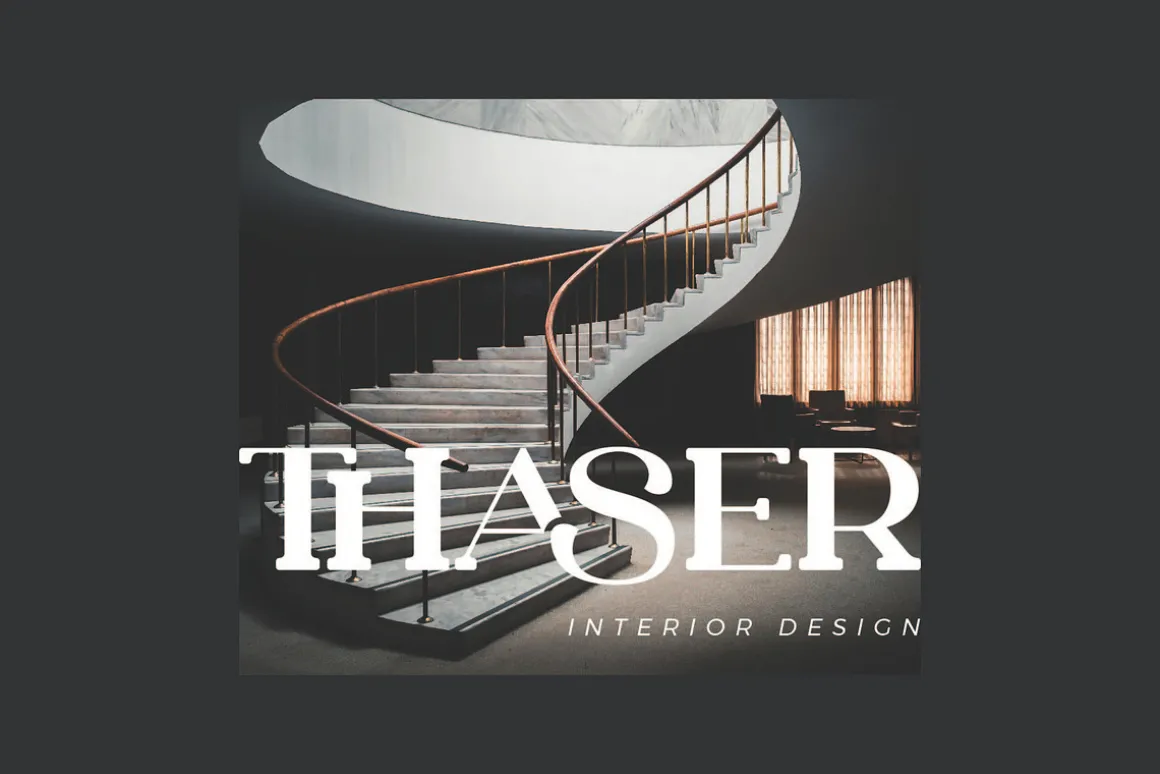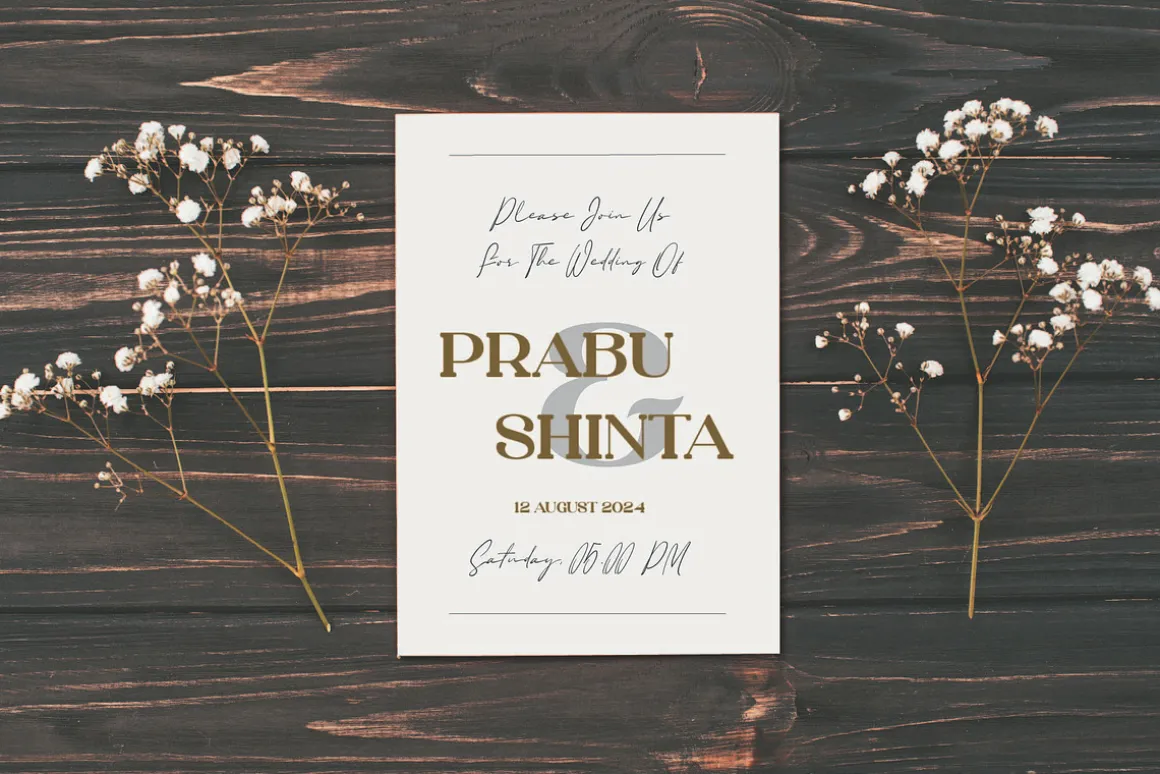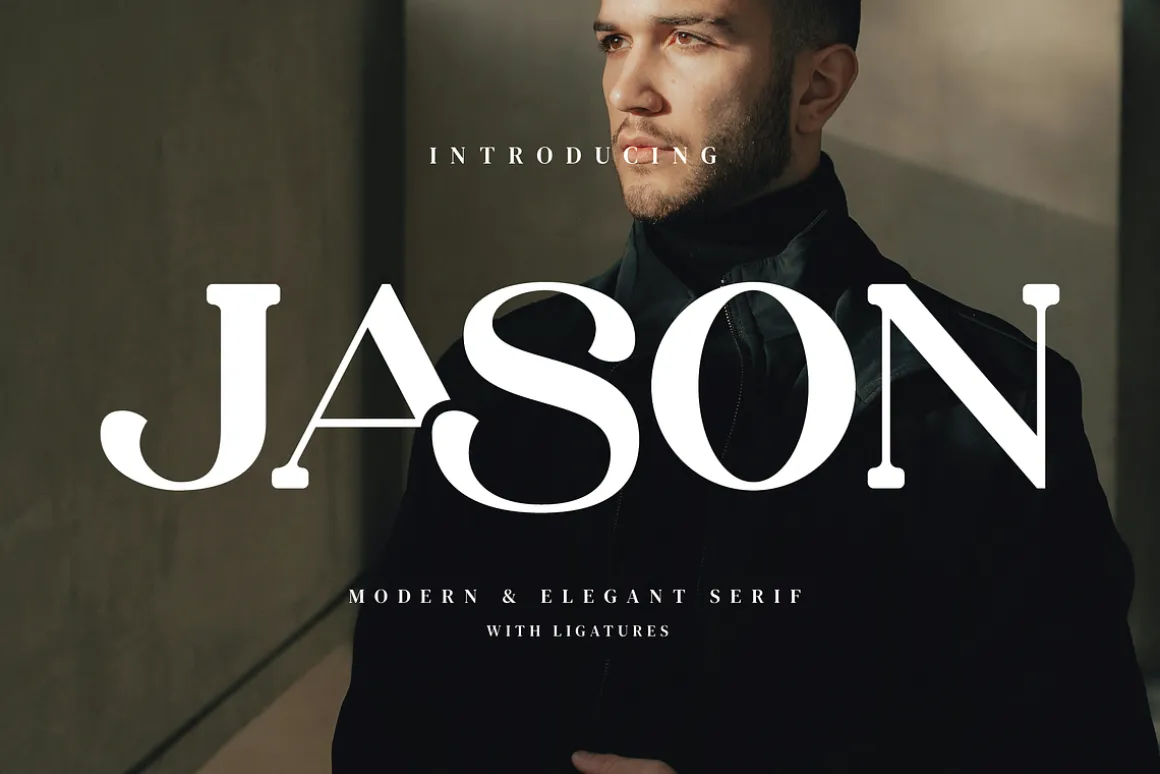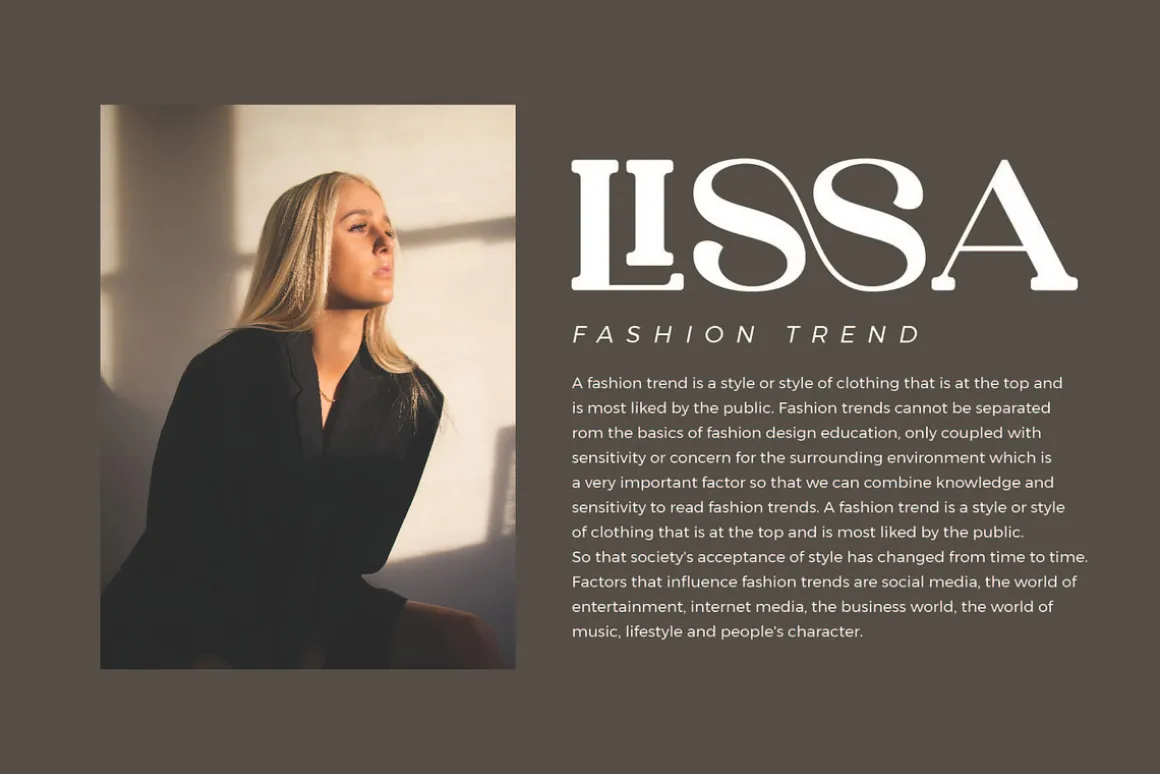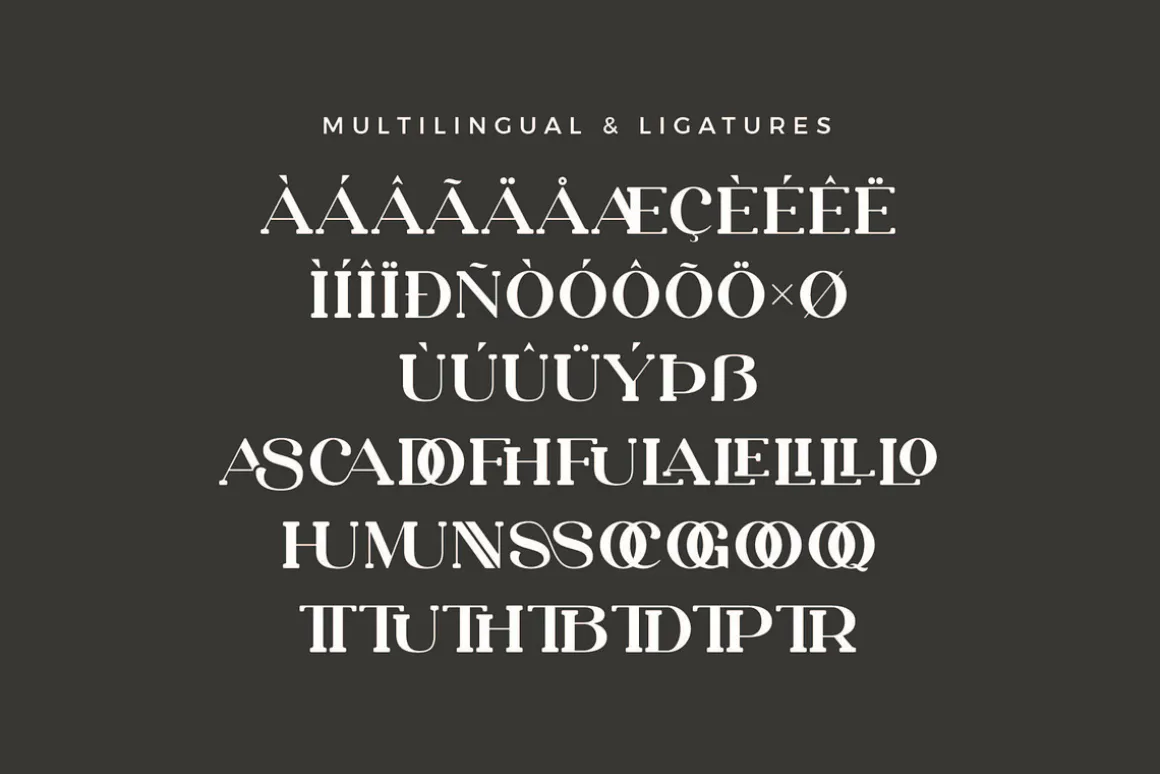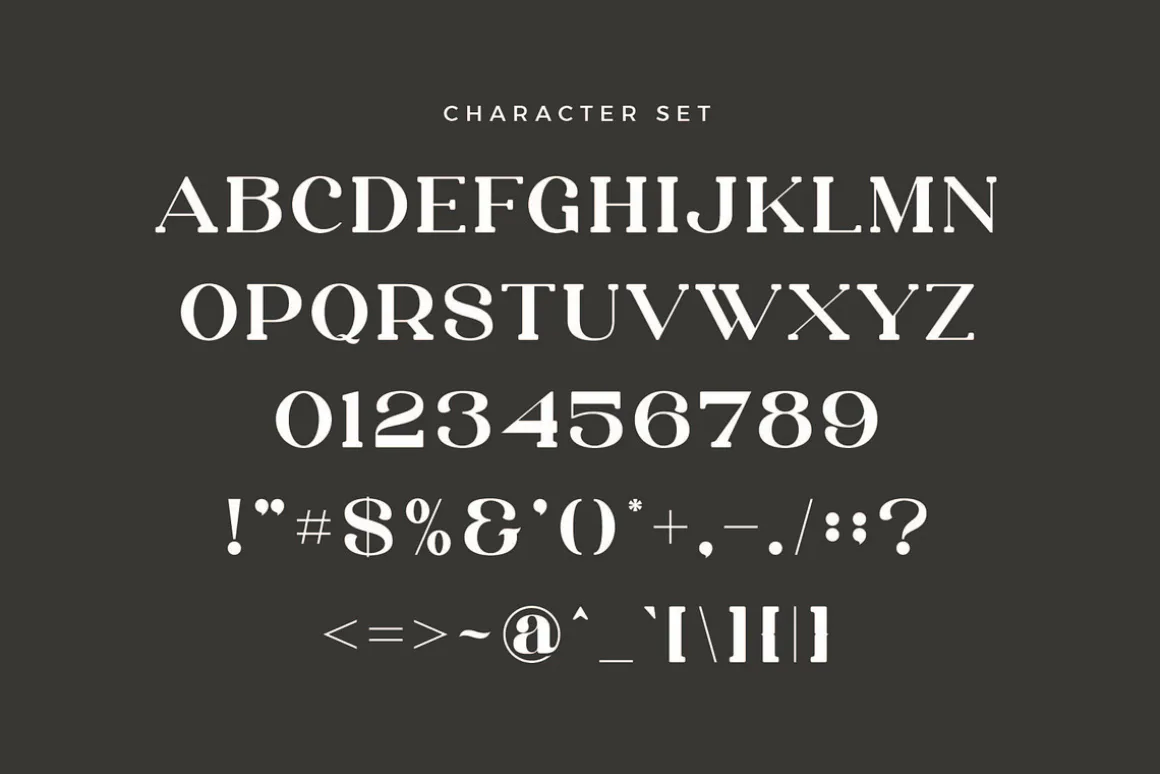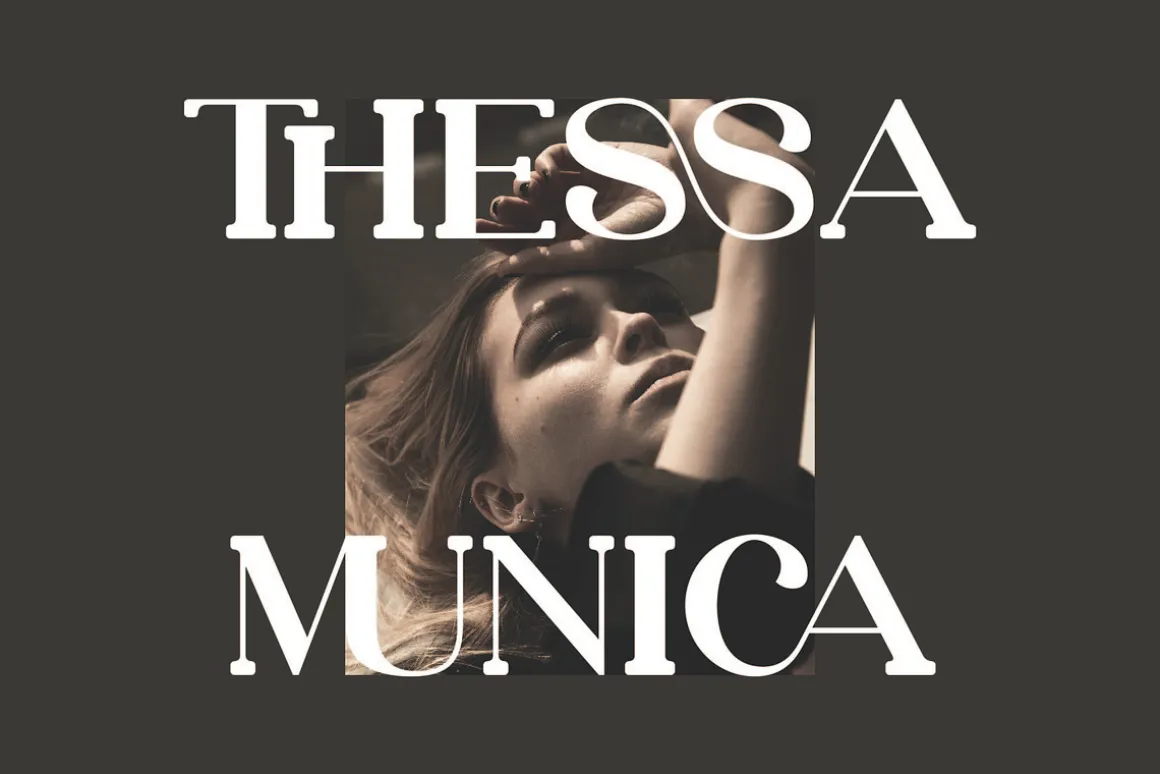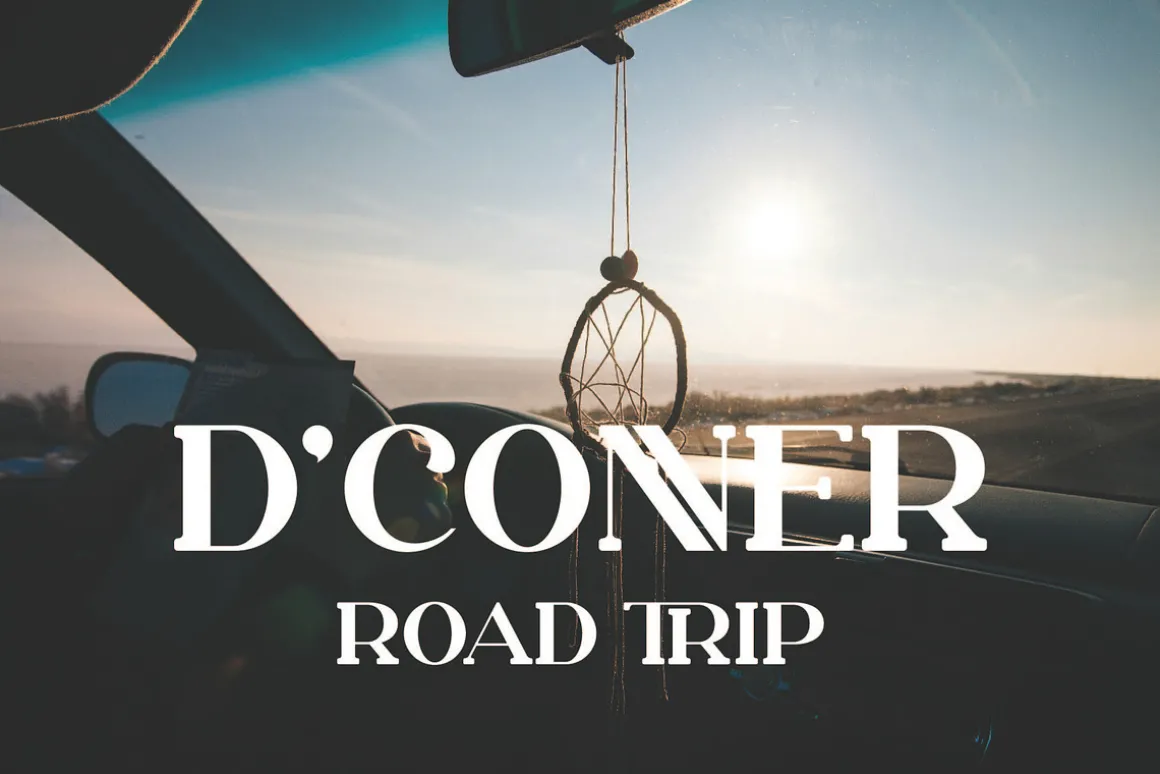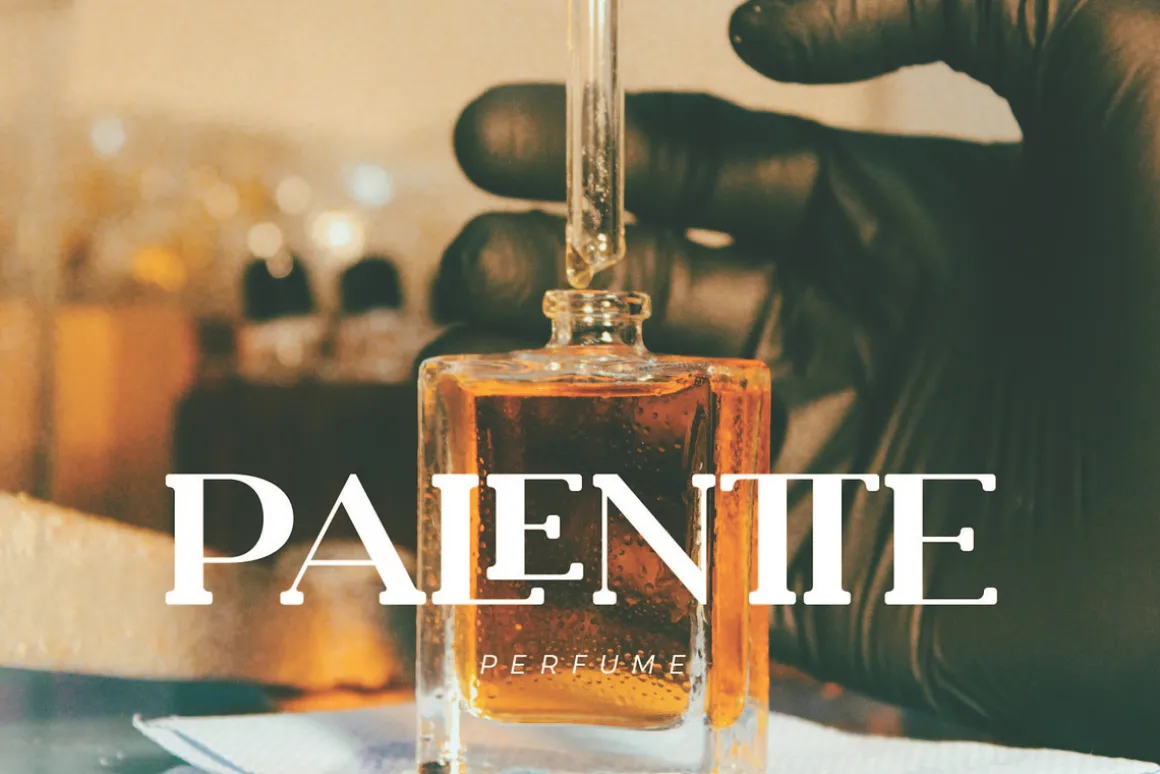
Jason Stylish Ligature Typeface, inspired by the famous minimalist logo perfect for the purposes of designing templates, brochures, videos, advertising branding, logos and more.
- Ligatures
- International Accent